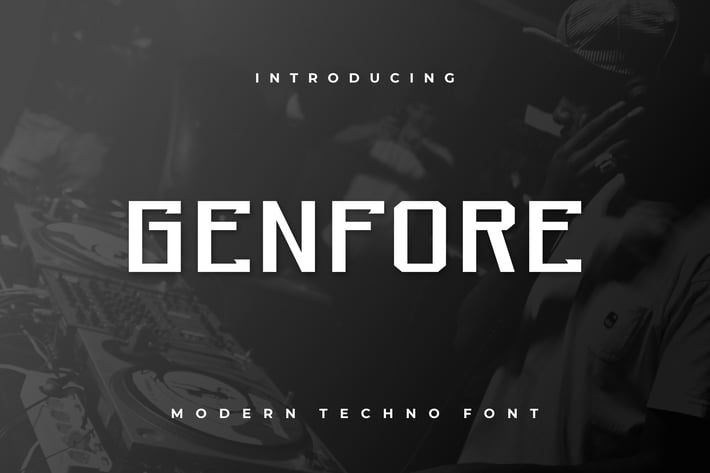
Genfore Font
Introducing our new product Genfore Font - Modern Font
Genfore Font - Modern Font is a bold and authentic display font. The font is suitable for any branding project like logo, esport, and many more. outstanding in a wide range of contexts.